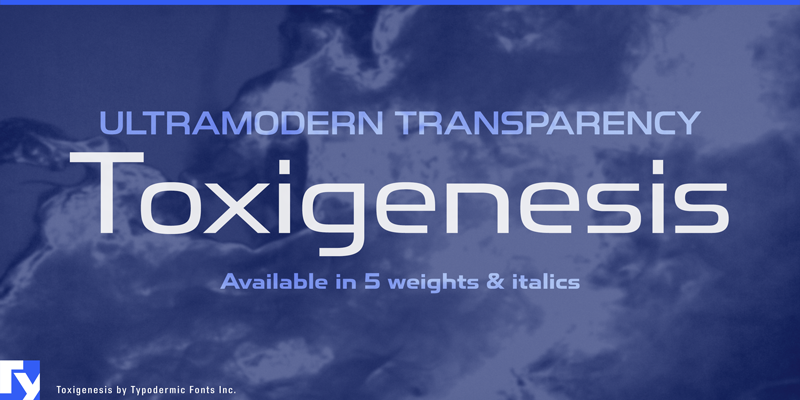
Toxigenesis is an ultramodern, superelliptical sans-serif typeface with plastic forms influenced by consumer electronics and vehicle design. Mathematical symbols, fractions, numeric ordinals and monetary symbols are in good supply. Cyrillic, Greek and almost all Latin-based languages are supported. Toxigenesis is available is five weights and italics. This font includes a license that allows free commercial use: sometimes referred to as a desktop license. This allows you to install the font on a computer and use it to create posters, web graphics, game graphics, t-shirts, videos, signs, logos and more. Read the license agreement for details. If you'd like to embed this font in an app, ebook, on the web or anything that's not covered by the desktop license agreement, visit the link below. You'll find distributors who offer different types of licenses or you can contact me for help. http://typodermicfonts.com/toxigenesis/ This free font is part of a larger font family. Check out the rest of the family through the link above. |